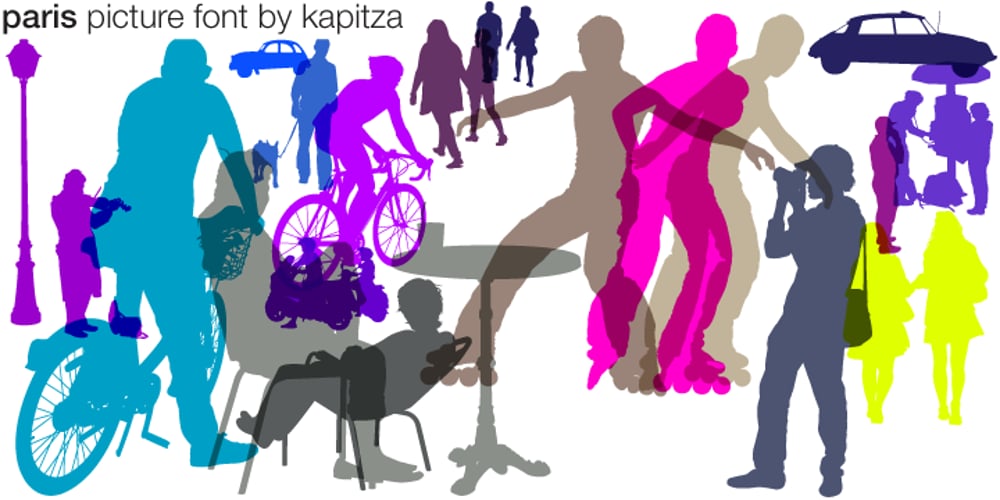
Paris
Paris font
Paris Font Family was designed by published by kapitza. Paris contains 1 styles and family package options. Walking around Paris looking for inspiration for our latest people font, we encountered chic Parisians, yummy food markets, and bakeries on virtually every street corner with delicious baguettes and pastries. We were surprised how many people were cycling, motorcycling and rollerblading along the vast boulevards and side streets of Paris. We spotted classic French cars like the 2CV and Citroën CX and watched the world go by in one of the many sidewalk cafes whilst enjoying a 1664 or a café crème. With our latest people font, Paris, we tried to capture this unique Parisian atmosphere and hope we succeeded. All 64 illustrations are based on photographs taken on location over a period of time. The photographs are then hand traced to create high quality, detailed silhouettes.